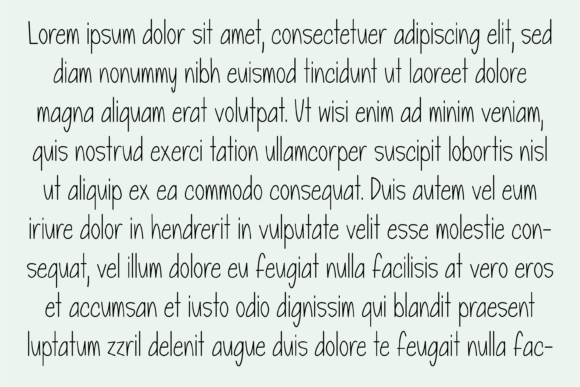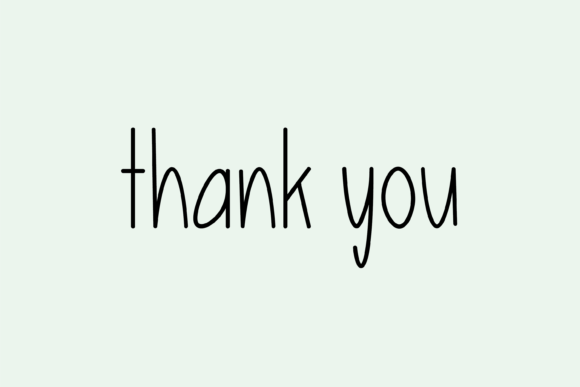
Introducing Dakus Font: The Simple, Friendly, and Whimsical Handwritten Font
In the world of typography, fonts play a crucial role in conveying the tone and personality of a design. Whether you’re a designer, crafty DIY enthusiast, or a business owner looking to elevate your brand, finding the right font can make all the difference. This is where Dakus Font comes in – a simple, friendly, and whimsical handwritten font that’s sure to brighten up your designs.
The Charm of Dakus Font
Dakus Font is a delightful addition to any design project. Its whimsical and slightly quirky nature makes it perfect for those looking to add a touch of personality to their work. This font’s friendly and approachable feel makes it an excellent choice for a wide range of applications, from logos and wedding invitations to quotes, advertisements, and more.
What Makes Dakus Font Special?
So, what sets Dakus Font apart from other fonts out there? Here are a few key characteristics that make it a standout:
- Simple and Easy to Read: Despite its whimsical nature, Dakus Font remains simple and easy to read, making it perfect for body text and headlines.
- Handwritten with Love: Dakus Font has a distinctly handwritten feel, giving it a personal and human touch that’s hard to replicate with more formal fonts.
- Versatile: Whether you’re designing a logo, creating a wedding invitation, or crafting a social media post, Dakus Font adapts seamlessly to any design style.
Dakus Font’s versatility makes it suitable for a wide range of projects, including:
- Logos: Create a memorable brand identity with Dakus Font’s unique and quirky style.
- Wedding Invitations: Add a touch of whimsy and romance to your wedding stationery with Dakus Font.
- Quotes and Posters: Make your inspirational quotes and posters stand out with Dakus Font’s playful feel.
- Advertisements: Grab attention and convey your brand’s personality with Dakus Font in your ad designs.
- Print and Magazines: Elevate your print materials, such as brochures, flyers, and magazine articles, with Dakus Font’s friendly and approachable style.
Why Choose Dakus Font?
With so many fonts available, why choose Dakus Font? Here are a few compelling reasons:
- Unique Style: Dakus Font offers a distinctive style that’s sure to set your designs apart from the crowd.
- Ease of Use: Its simplicity and readability make Dakus Font easy to use in a variety of contexts.
- Emotional Connection: Dakus Font’s handwritten nature creates an emotional connection with readers, making your designs more relatable and engaging.
How to Use Dakus Font Effectively
To get the most out of Dakus Font, consider the following tips:
- Pair with Complementary Fonts: Combine Dakus Font with complementary fonts to create visual interest and hierarchy in your designs.
- Experiment with Colors: Dakus Font looks great in a variety of colors, so don’t be afraid to experiment and find the perfect hue for your design.
- Play with Sizes: Use Dakus Font in different sizes to create emphasis and add visual interest to your designs.
Dakus Font is a simple, friendly, and whimsical handwritten font that’s perfect for designers and crafters looking to add a touch of personality to their work. Its versatility, unique style, and emotional connection make it an excellent choice for a wide range of projects. Whether you’re designing logos, wedding invitations, quotes, advertisements, or print materials, Dakus Font is sure to brighten up your designs and leave a lasting impression.